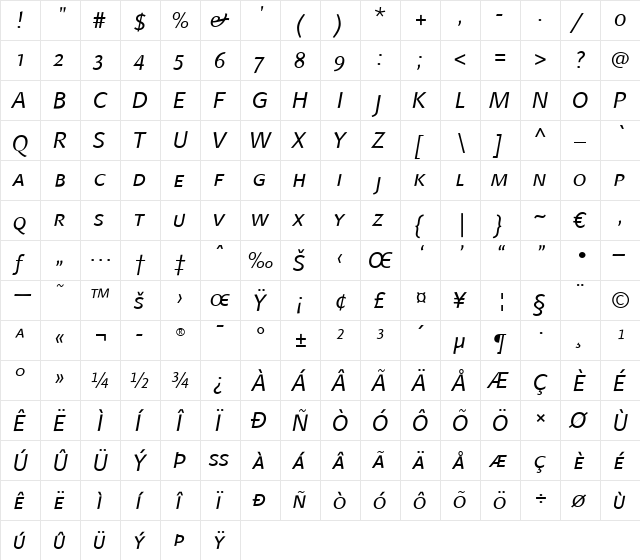
LTFinnegan SC Regular Italic
Italic ·  Juergen Weltin ·
DesignerJuergen Weltin
Design Context for LTFinnegan SC Regular Typeface
LTFinnegan SC Regular offers clean, dependable letterforms without strong stylistic allegiance, making it a practical choice for designers who need flexibility. The dynamic lean of this cut emphasises speed and emphasis in any layout.
Pro Tip: Try LTFinnegan SC Regular for annotation and caption copy alongside an upright companion — the contrast in angle creates a dynamic but ordered typographic system.